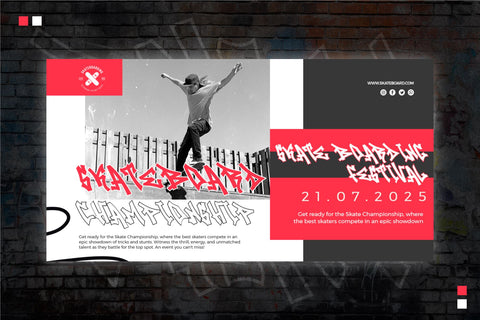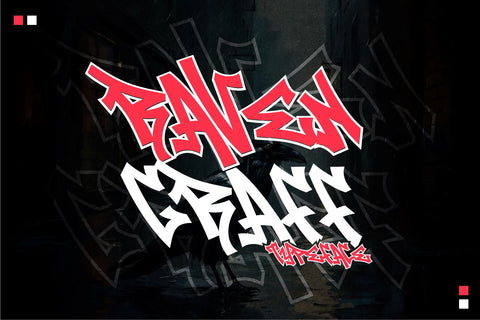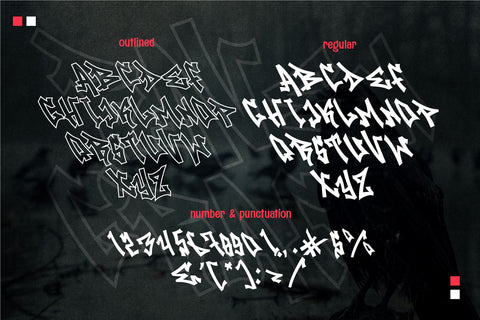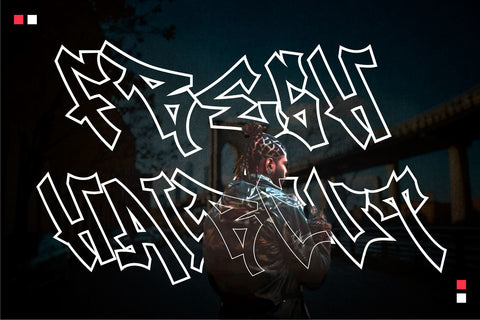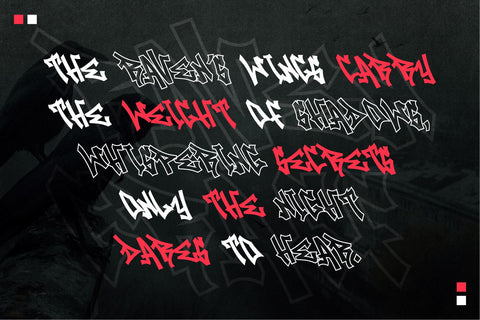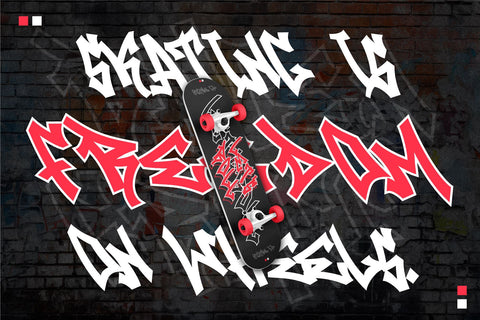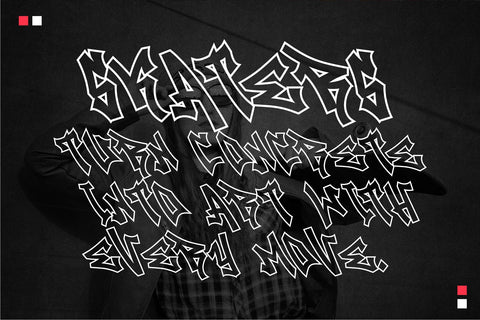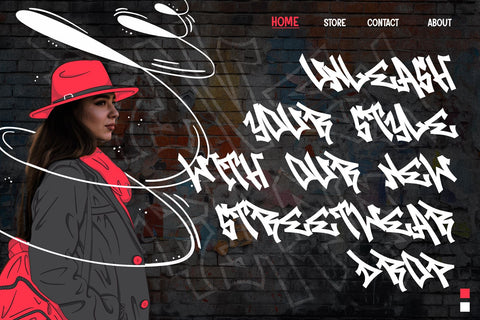
Raven Graff - Outlined Monoline Graffiti Font
Raven Graff is a dynamic monoline graffiti font that comes with two distinct character styles: regular and outline. The font is designed with sharp edges that give each character a realistic, handwritten appearance, perfectly capturing the raw, edgy feel of street art. This versatile typeface is ideal for urban-themed designs, streetwear branding, social media graphics, and more. Raven Graff adds a bold, rebellious touch to any project, making it stand out with its authentic and energetic vibe. Whether you're working on posters, logos, or custom apparel, this font delivers a powerful, graffiti-inspired aesthetic that’s sure to leave a lasting impression.
- Solid and Outlined Style